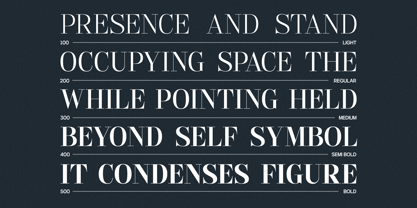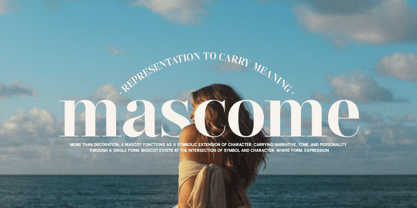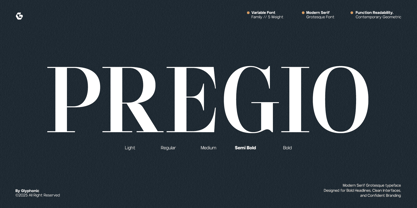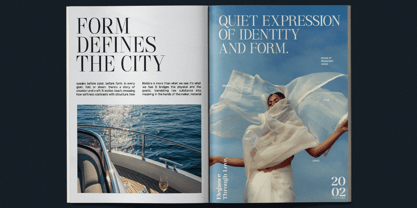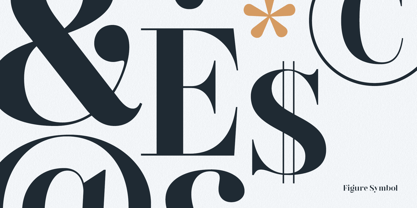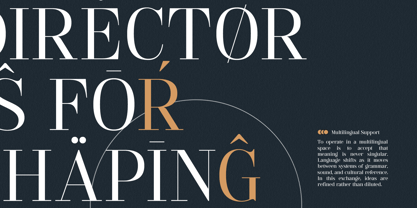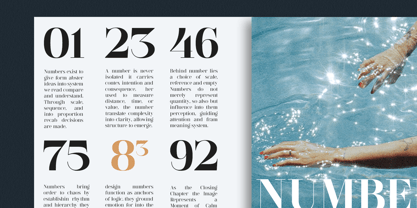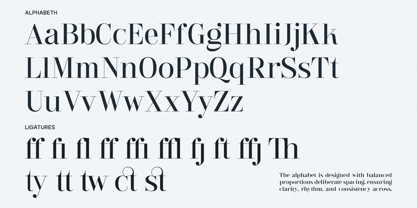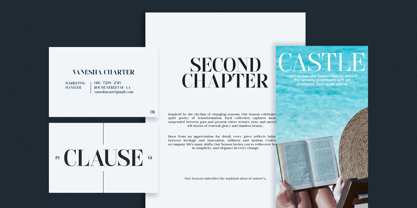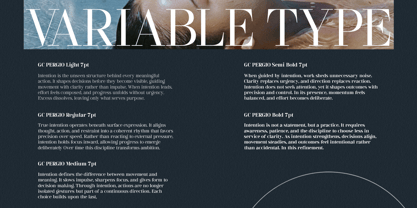
GC Pregio
The GC Pregio Font Family was designed by Muhammad Hafiizh Solana and published by Onyx Studio. GC Pregio contains 5 styles and family package options. More about this family
GC Pregio – Clean Serif Typeface is a refined serif font family designed for clarity, elegance, and timeless versatility. Featuring clean shapes, balanced proportions, and subtle serif details across multiple styles, it delivers a professional yet warm character that remains consistent and flexible in use. Crafted to blend classic sophistication with modern simplicity, GC Pregio is ideal for branding systems, editorial design, headlines, print materials, and premium visual identities. Its well-structured family allows designers to create clear hierarchy while maintaining visual harmony. Whether you’re designing elegant layouts, refined logos, or sophisticated editorial compositions, GC Pregio provides consistency, readability, and understated elegance across every application. Features: - Complete Font Family - Uppercase & Lowercase - Numbers & Punctuation - Clean & Balanced Serif Construction - Multilingual Support (170+ Languages) Bring timeless clarity and cohesive elegance to your designs with GC Pregio.